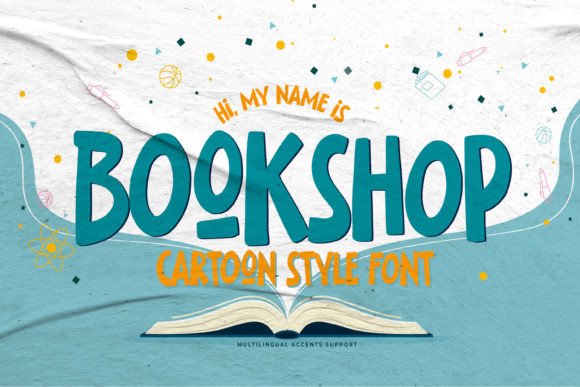
Journey into the world of charm and playfulness with Bookshop Font, a captivating display font that ignites imagination and adds a touch of whimsy to your creative endeavors. Picture this: a playful font dance across your digital designs, presentations, or greeting cards, bringing a smile to the faces of your audience. Whether you're crafting logos, playful restaurant menus, or expressing heartfelt messages, Bookshop Font effortlessly adds a dash of delight.
Dive into a world of limitless possibilities, where your creative ideas take center stage. Bookshop Font's versatility knows no bounds, effortlessly complementing an incredibly diverse range of projects. Unleash your creativity and witness the transformation as ordinary designs blossom into captivating masterpieces.
With Bookshop Font, you're not just downloading a font; you're embracing an artistic adventure. Its meticulously crafted glyphs and ligatures dance harmoniously, adding a touch of magic to every word. Experience the ease of PUA encoding, allowing you to effortlessly access these stunning elements and elevate your designs to new heights.
Don't settle for ordinary, embrace the extraordinary. Bookshop Font beckons you to leave a lasting impression, to make your designs sing, and to embark on a creative journey like no other. Let your imagination soar, let your creativity flow, and let Bookshop Font guide you towards design excellence.